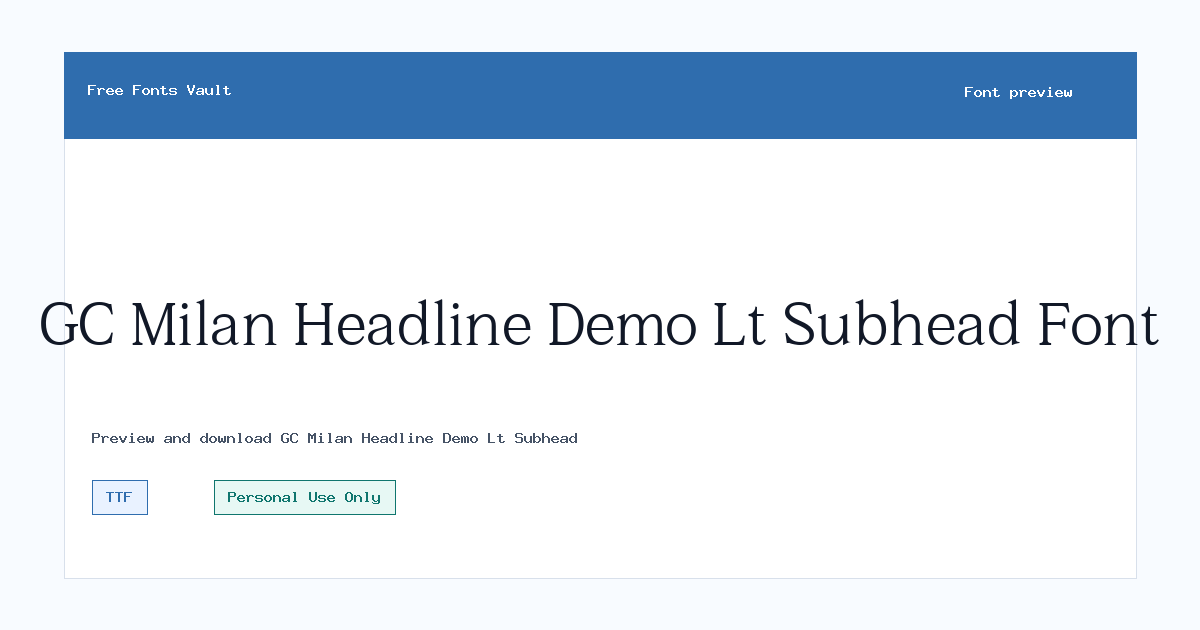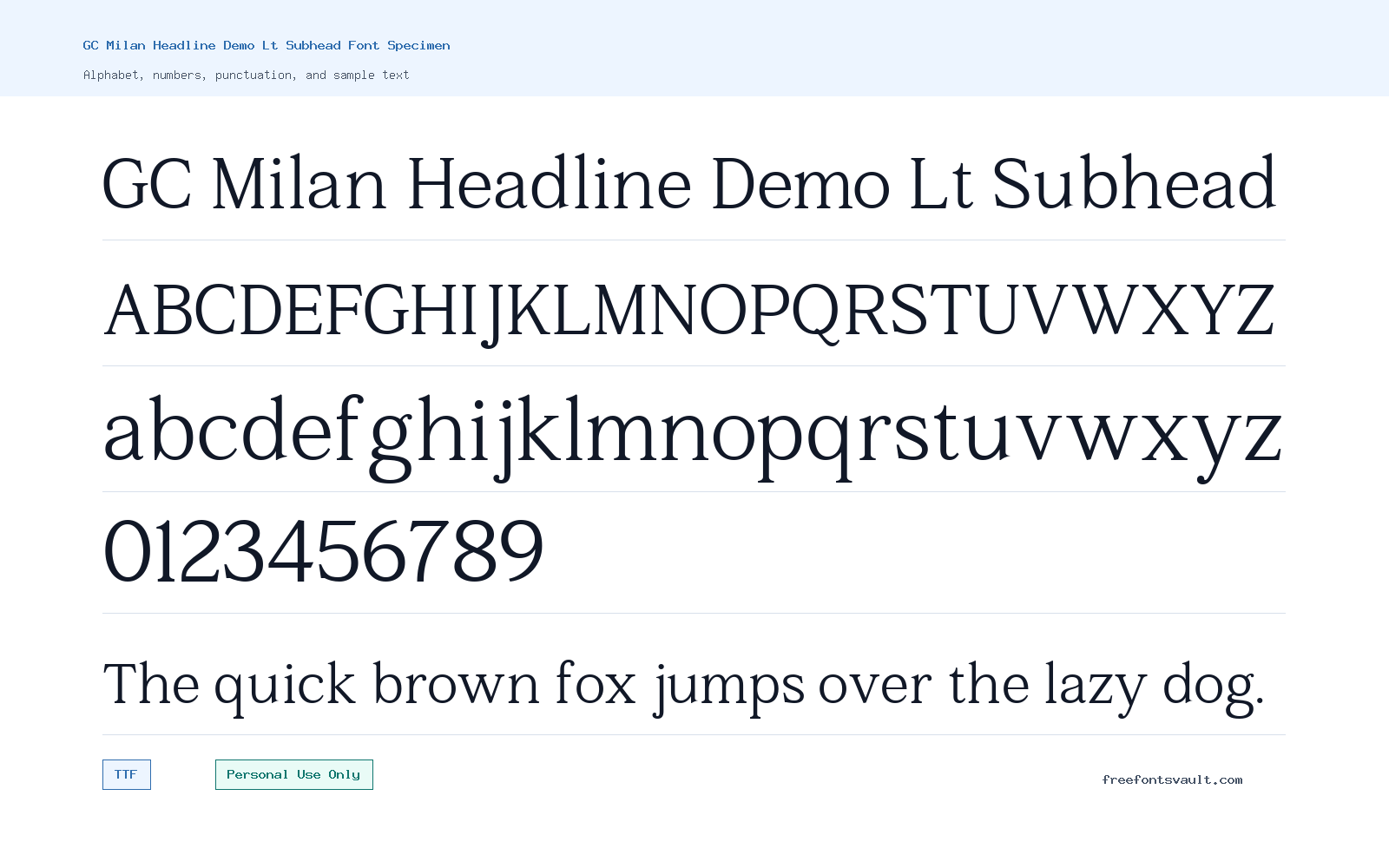
GC Milan Headline Demo Lt Subhead
GC Milan Headline Demo Lt Subhead Font
• Designer Zainaldi Ibrahim of Glyphonic
• Foundry Glyphonic
GC Milan Headline Demo Lt Subhead font.
GC Milan Headline Demo Lt Subhead is a light headline serif from the GC Milan family by Zainaldi Ibrahim of Glyphonic. It is a demo font with a Personal Use Only license, so it is best treated as a testing and non-commercial design resource unless you obtain the proper license for broader use.
About GC Milan Headline Demo Lt Subhead
GC Milan Headline Demo Lt Subhead has the role its name suggests: it is made for display settings where a lighter serif can support a main title without overpowering it. The light weight gives words an elegant, spacious feel, while the headline serif structure keeps the letters more formal than a casual text face. It can work well for editorial subheads, magazine-style section titles, portfolio covers, brand moodboards, invitation drafts, and refined social graphics where the text is short and carefully placed.
Because this is a light subhead style, it needs enough size and contrast to look its best. Try it in the preview with names, short headlines, product labels, pull quotes, and two-line title layouts. Avoid relying on it for long paragraphs, tiny mobile captions, or low-contrast color combinations, because thin strokes can lose clarity quickly. For pairing, keep the supporting font simple: a clean sans serif for body copy, navigation, or captions will usually let the serif shape stand out without making the design feel crowded.
• Light headline serif style suited to short, polished display text.
• Editorial subheads, magazine-style headings, and refined title layouts.
• Personal design drafts, invitations, portfolio graphics, moodboards, and social posts.
Designer credit is listed as Zainaldi Ibrahim of Glyphonic, with Glyphonic also listed as the foundry.
What kind of font is GC Milan Headline Demo Lt Subhead?
It is a light headline serif demo font intended for display-style use such as headings, subheads, covers, and short feature text.
Can I use this font for body text?
It is better for short display text. For long reading, pair it with a simpler body font that stays clear at smaller sizes.
Who designed GC Milan Headline Demo Lt Subhead?
The designer is listed as Zainaldi Ibrahim of Glyphonic.